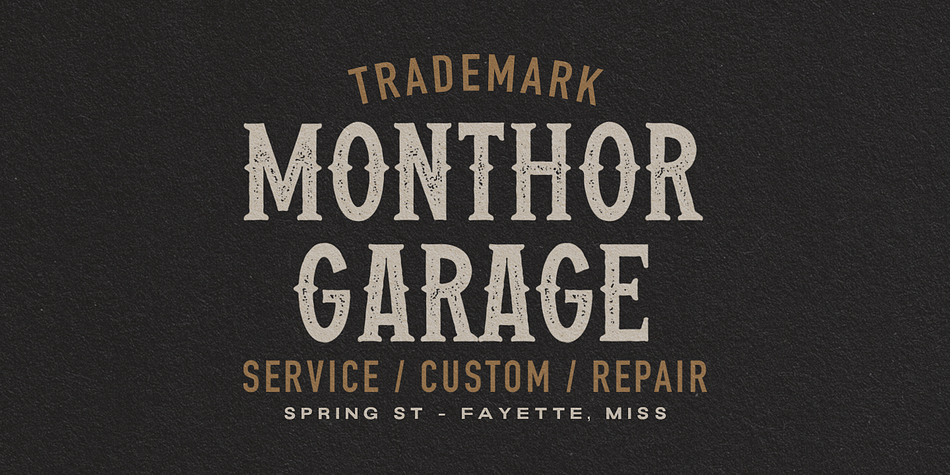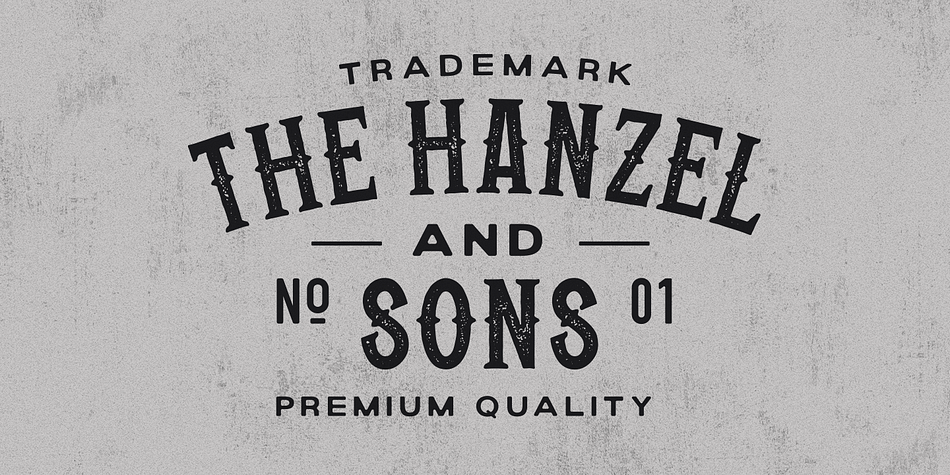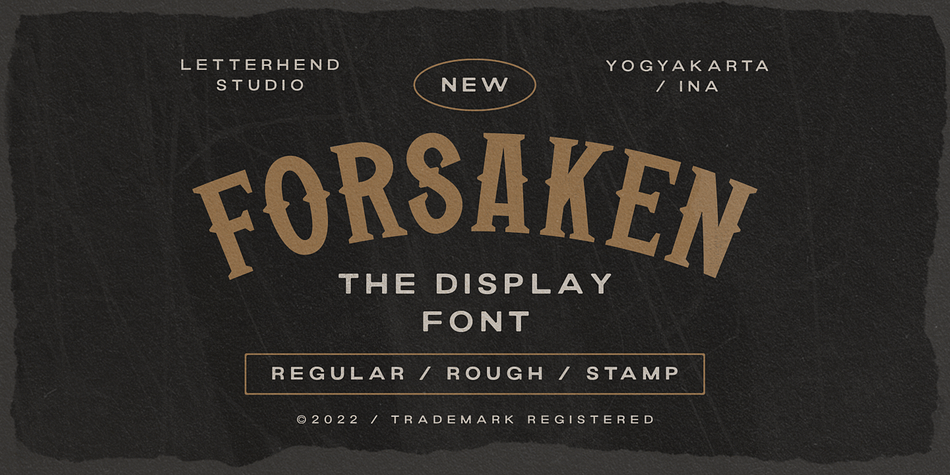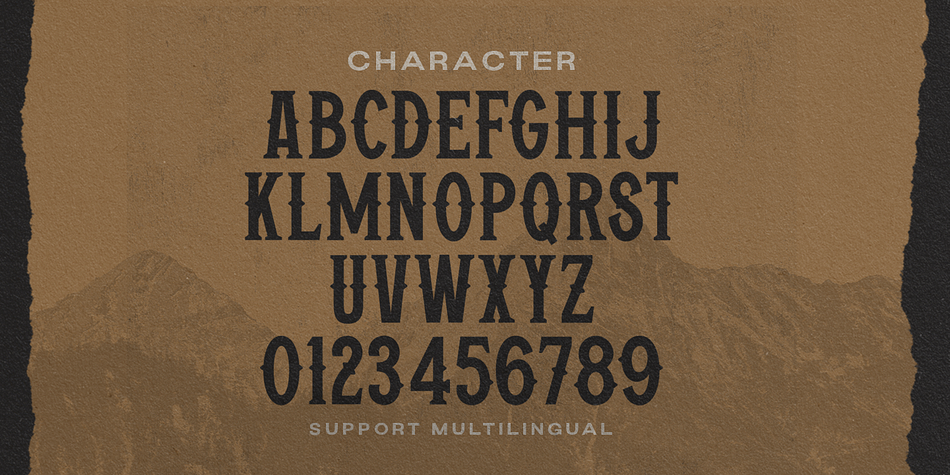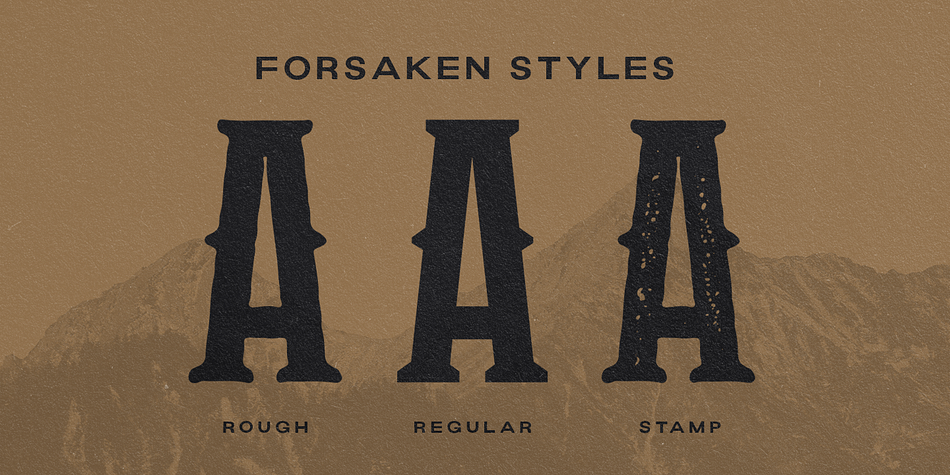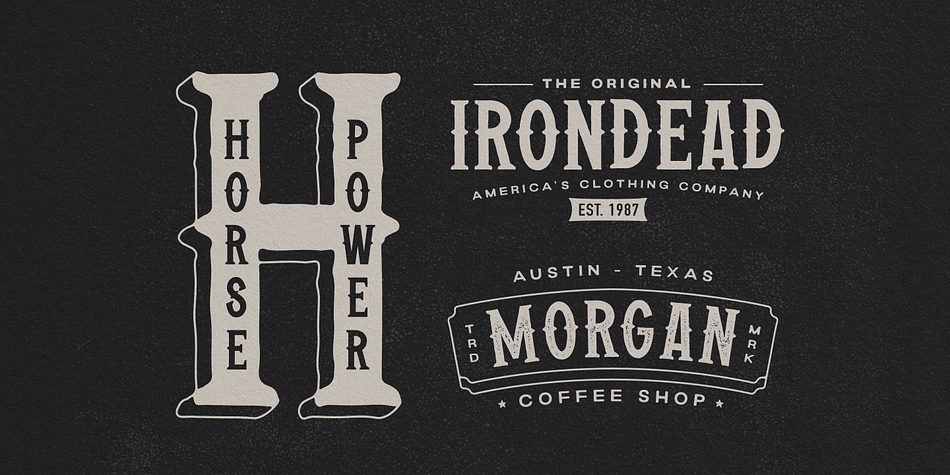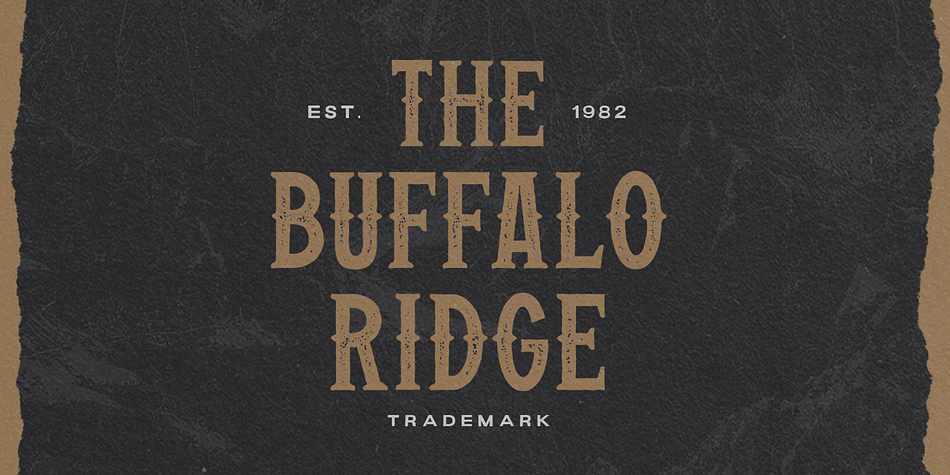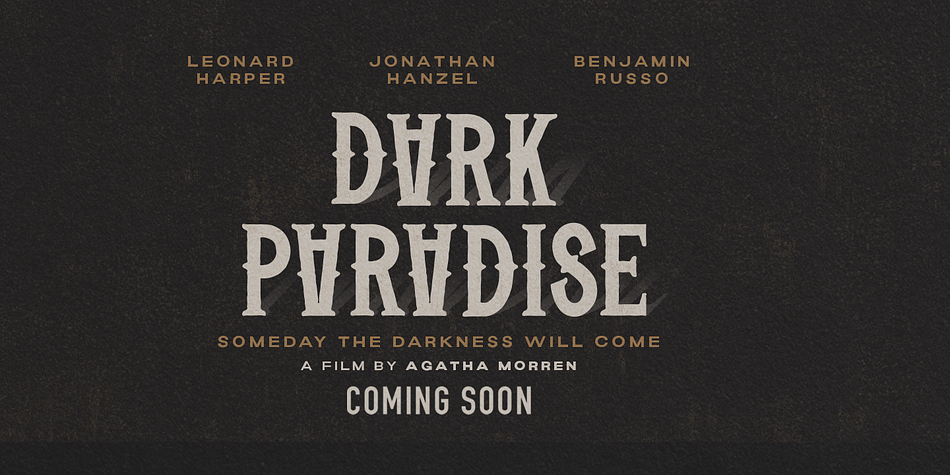
Designed by Hendry Juanda, Forsaken is a display serif, western and wood type font family. This typeface has three styles and was published by Letterhend Studio.
Forsaken is a serif display typeface with a touch of vintage look and feel. This font comes with 3 styles : regular, rough and stamp. This type of font perfectly made to be applied especially in logo, headline, signage and the other various formal forms such as invitations, labels, logos, magazines, books, greeting / wedding cards, packaging, fashion, make up, stationery, novels, labels or any type of advertising purpose.
- multilingual alternates / swashes and ligatures